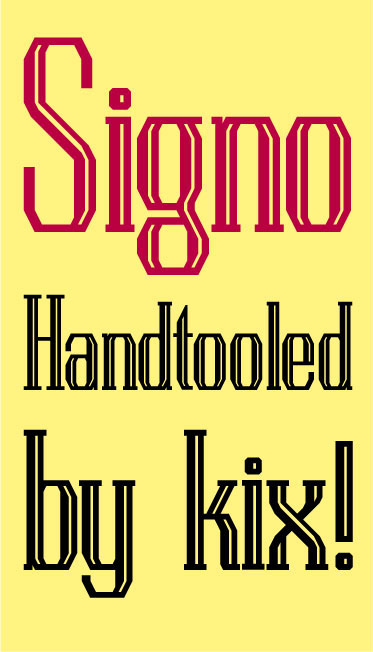
numerals added
(i'm proud of that "8")
Gosh I want this higher than 5.7! Love to see a lower case. I always want what I can't have.
hm... maybe i think that over :)
it was worth it :)
finished...
i know there's a displaced looking brick on "~", but without placing that, the preview looks crappy.
The 8 is very nice...and the @ is just pure sexy.
Fabulous. The lower-case g really works. It shouldn't but it does! I thin the affinity between it and the "f" reinforces it. No mean feat getting a believable asterisk, either. I'm filled with admiration.
I agree that the preview looked really bad before. However, now you have gigantic leading! ;-)